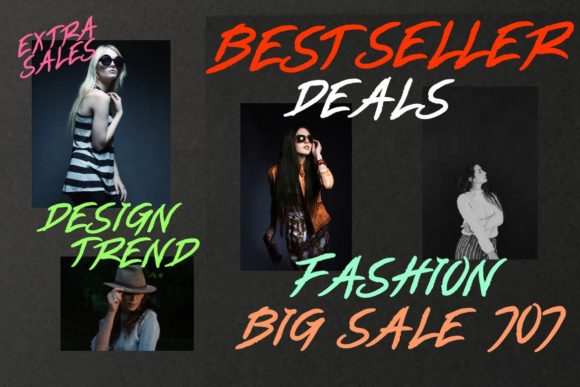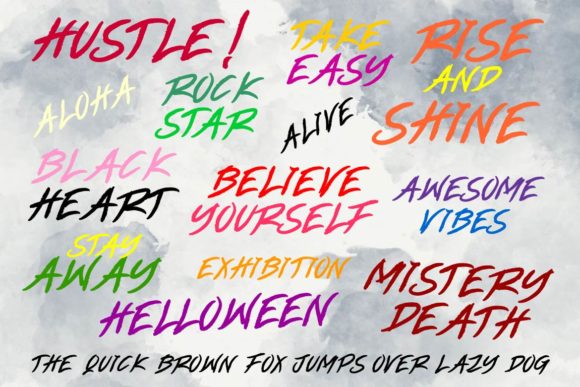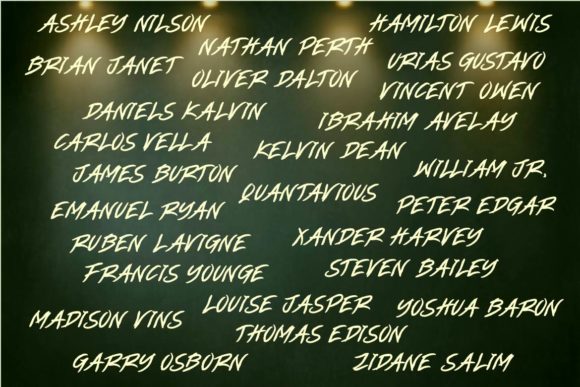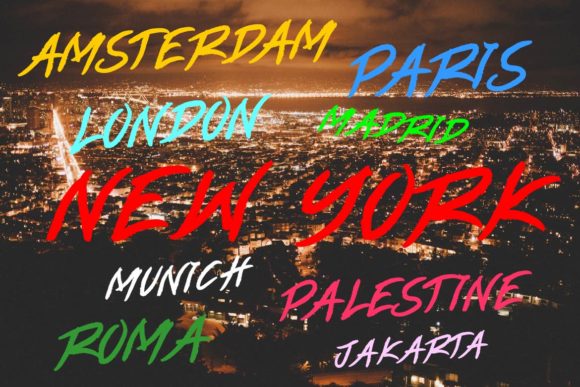
Introducing Enemy Font: The Cute Handwritten Font to Elevate Your Designs
Are you a designer or crafter looking for a unique and charming font to take your projects to the next level? Look no further than Enemy Font, a delightful handwritten font that is sure to capture the hearts of your audience. With its playful and whimsical touch, Enemy Font is the perfect addition to a wide range of design projects, from branding and headings to wedding designs, invitations, signatures, logos, labels, and more!
The Versatility of Enemy Font
One of the standout features of Enemy Font is its incredible versatility. This font is not limited to a specific style or theme, making it an excellent choice for various design projects. Whether you’re working on a modern and sleek branding campaign or a vintage-inspired wedding invitation, Enemy Font can adapt to any design aesthetic. Its cute and handwritten style adds a touch of personality to your projects, making them stand out from the crowd.
Enemy Font is a dream come true for designers and crafters who want to add a personal touch to their work. With this font, you can create stunning visual content that resonates with your audience. The font’s playful and charming style makes it perfect for:
- Branding: Use Enemy Font to create eye-catching logos, business cards, and letterheads that reflect your brand’s personality.
- Wedding Designs: Add a touch of romance to your wedding invitations, save-the-date cards, and other wedding-related designs with Enemy Font.
- Invitations: Create beautiful and unique invitations for parties, events, and other celebrations using Enemy Font.
- Signatures: Use Enemy Font to create elegant and personalized signatures for your emails, letters, and other documents.
- Logos: Design memorable and adorable logos for your business or personal brand with Enemy Font.
- Labels: Add a touch of whimsy to your product labels, packaging, and other marketing materials with Enemy Font.
Why Choose Enemy Font?
With so many fonts available, why choose Enemy Font? Here are just a few reasons why this font stands out:
- Unique Style: Enemy Font has a one-of-a-kind, handwritten style that will set your designs apart from the rest.
- Ease of Use: This font is easy to read and works well in both digital and print formats.
- High-Quality: Enemy Font is a high-quality font that is designed to deliver exceptional results in your designs.
- Versatile: As mentioned earlier, Enemy Font is incredibly versatile and can be used in a wide range of design projects.
Tips for Using Enemy Font
To get the most out of Enemy Font, here are a few tips to keep in mind:
- Experiment with Sizes: Try out different font sizes to see how Enemy Font looks in various contexts.
- Pair with Other Fonts: Combine Enemy Font with other fonts to create a unique and visually appealing typography.
- Play with Colors: Experiment with different colors to see how they affect the overall look and feel of your design.
- Keep it Simple: Don’t be afraid to keep your design simple and let Enemy Font be the star of the show.
In conclusion, Enemy Font is a charming and versatile handwritten font that is perfect for designers and crafters looking to elevate their projects. With its unique style, ease of use, and high-quality design, Enemy Font is sure to become a favorite in your font collection. Whether you’re working on branding, wedding designs, invitations, or any other project, Enemy Font is the perfect choice. So why wait? Download Enemy Font today and start creating stunning designs that capture the hearts of your audience!